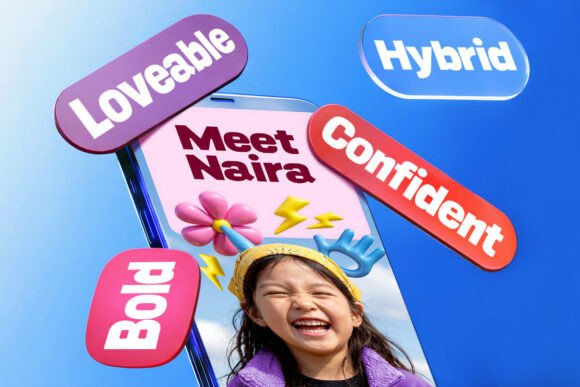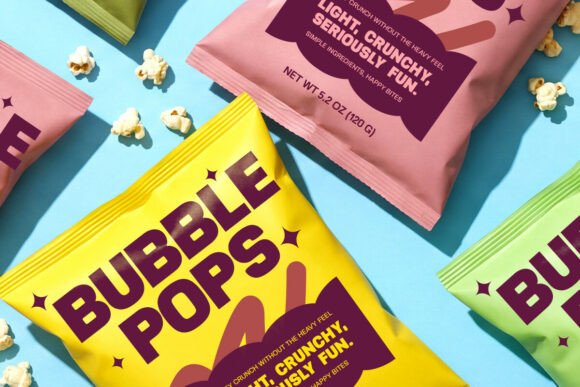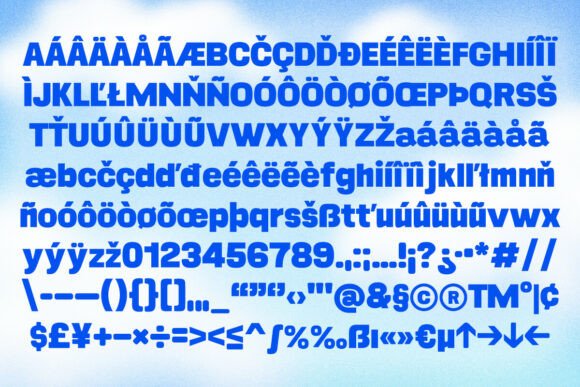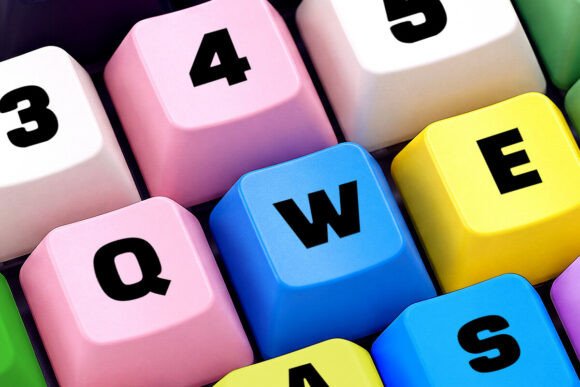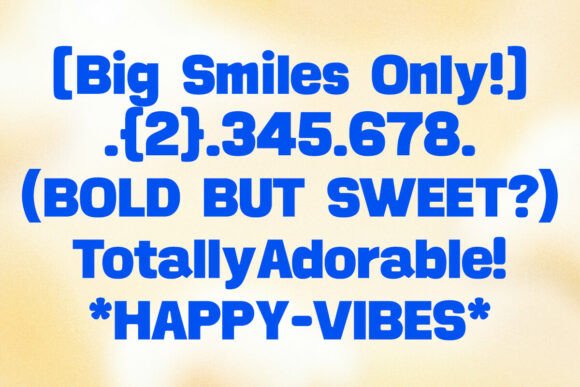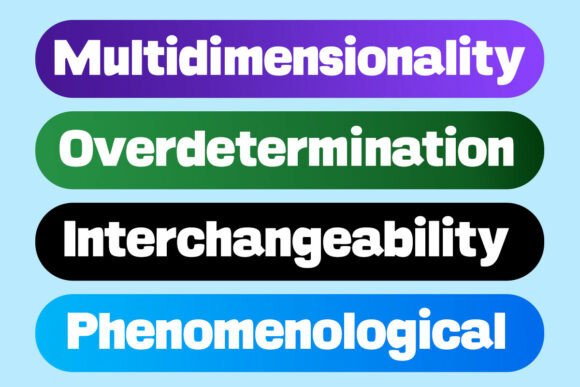
Meet the Font that Brings Joy to Your Designs
As designers, we’ve all been there – staring at a blank canvas, trying to come up with the perfect font to capture the essence of our project. The blank page can be intimidating, but what if I told you there’s a font that can take your designs to the next level? One that’s playful, confident, and packs a punch? Enter the Beka Font – a display sans serif designed to bring joy and strong personality into bold typography.
With its chunky forms, rounded corners, and soft geometric structure, Beka Font delivers a lovable yet confident character that stands out while remaining clear and readable at large sizes. This makes it perfect for posters, headlines, branding, packaging, and expressive visual design. Whether you’re working on a project that needs a clean structure with a strong personality or just want to add some visual flair, the Beka Font is an invaluable addition to your design toolkit.
Beka Font Key Features
- Font Family: Beka is a sans-serif font family designed by Peter Biľak.
- Unique Characteristics: Beka is known for its clean, geometric design and high x-height, making it suitable for body text and titles.
Beka Font Review
Beka Font is a clean and elegant sans-serif font that can be a great addition to your design projects. ✨ It has a simple and modern aesthetic that works well in both digital and print mediums.
- Legibility: Beka Font is highly legible, making it perfect for body text and content-heavy projects.
- X-height: The x-height of Beka Font is well-balanced, making it easy to read at various font sizes.
- Neutral tone: The font has a neutral tone that works well with a wide range of colors and designs.
- Lack of expressiveness: Beka Font can come across as a bit flat and lacking in personality, which may make it less suitable for creative or artistic projects.
- No distinctiveness: The font is not particularly distinctive, which can make it harder to stand out in crowded design spaces.
Overall, Beka Font is a solid choice for designers looking for a clean and modern sans-serif font. While it may not be the most exciting or expressive font, it gets the job done and is easy to work with. If you’re looking for a reliable font that won’t distract from your design, Beka Font is definitely worth considering.
Beka Font is ideal for:
- Designing modern and sleek posters, flyers, and brochures.
- Creating stylish and professional business cards and letterheads.
- Adding a touch of elegance to wedding invitations and event materials.
Alternatives to Beka Font
Open Sans is a modern sans-serif font that works well for digital products and interfaces. It is highly legible and suitable for body text. When to use: digital products, websites, apps, and mobile interfaces. Comparison: Open Sans has a more geometric and clean look compared to Beka Font’s more rounded and friendly feel.
Montserrat is a sans-serif font designed for urban environments. It is highly legible and versatile, making it suitable for various design projects. When to use: urban design projects, signage, digital products, and editorial content. Comparison: Montserrat has a more geometric and urban feel compared to Beka Font’s friendly and approachable look.
Lato is a modern sans-serif font designed for digital products and interfaces. It is highly legible and suitable for body text. When to use: digital products, websites, apps, and mobile interfaces. Comparison: Lato has a more elegant and refined look compared to Beka Font’s friendly and approachable feel.
Avenir is a geometric sans-serif font designed for high-end design projects. It is highly legible and suitable for titles and headings. When to use: high-end design projects, luxury branding, and editorial content. Comparison: Avenir has a more modern and elegant look compared to Beka Font’s friendly and approachable feel.